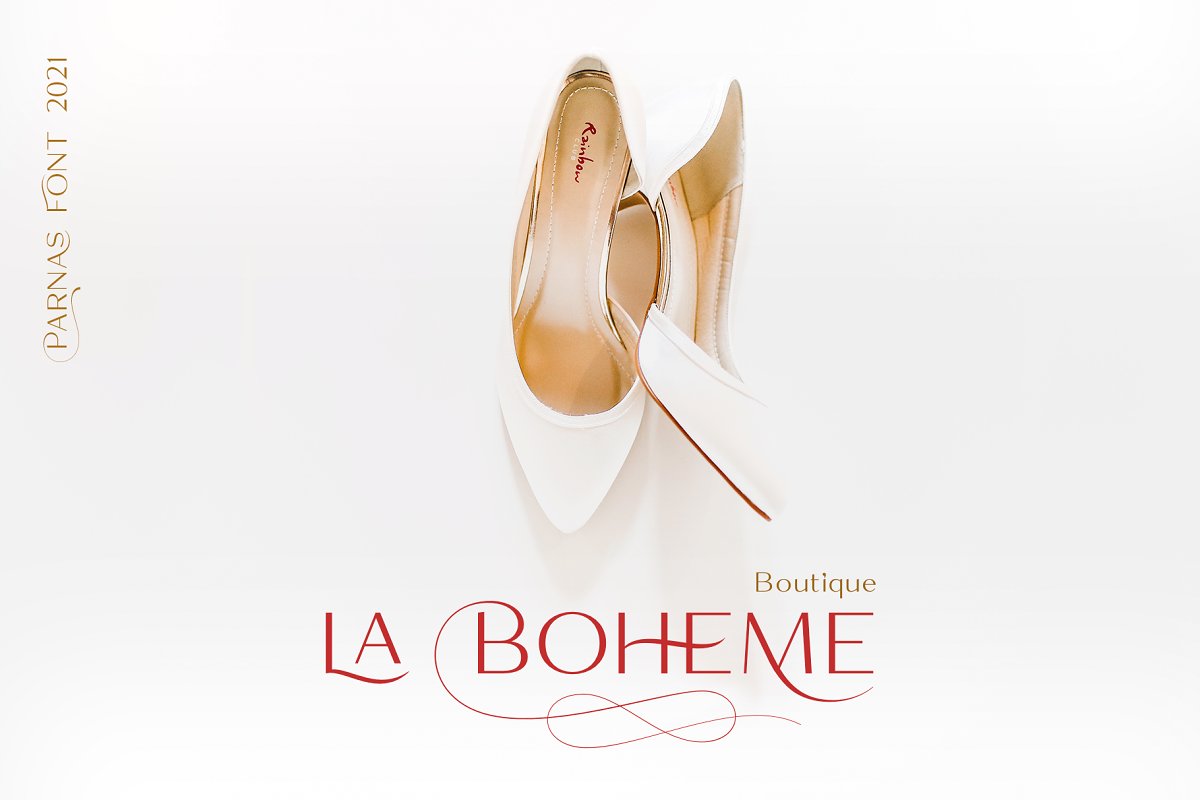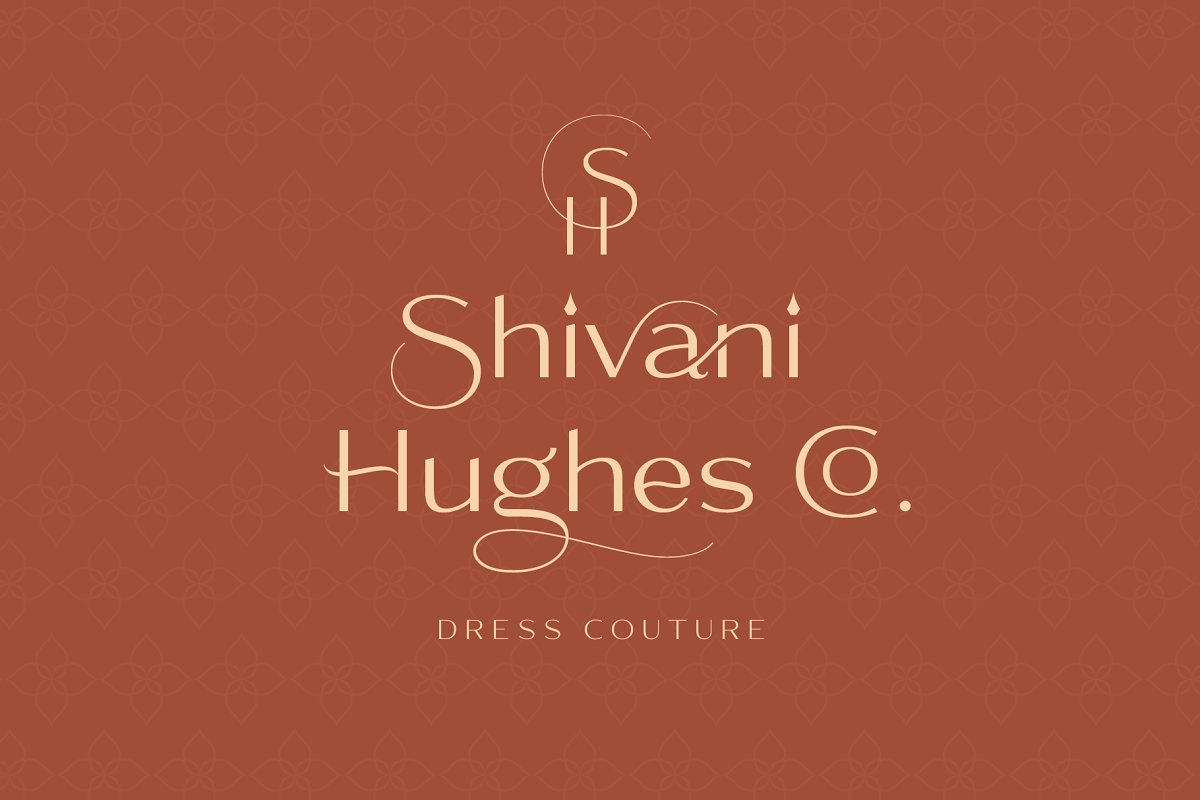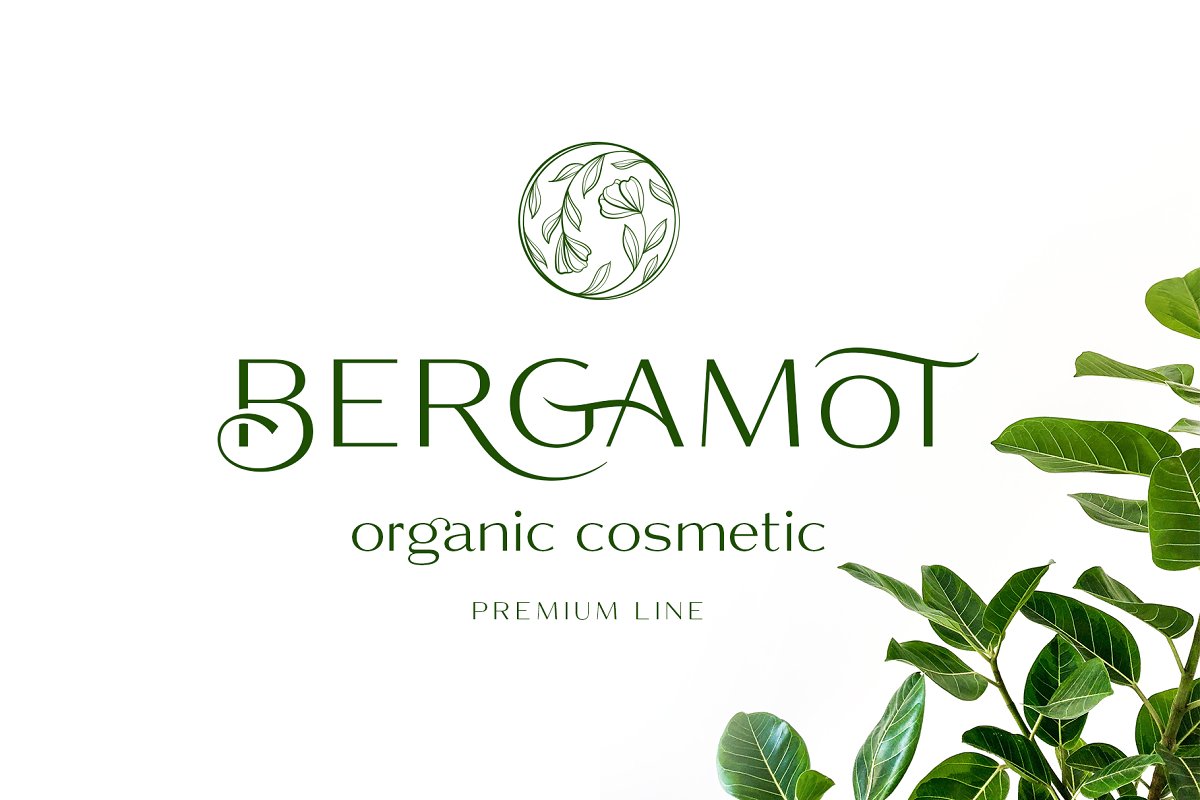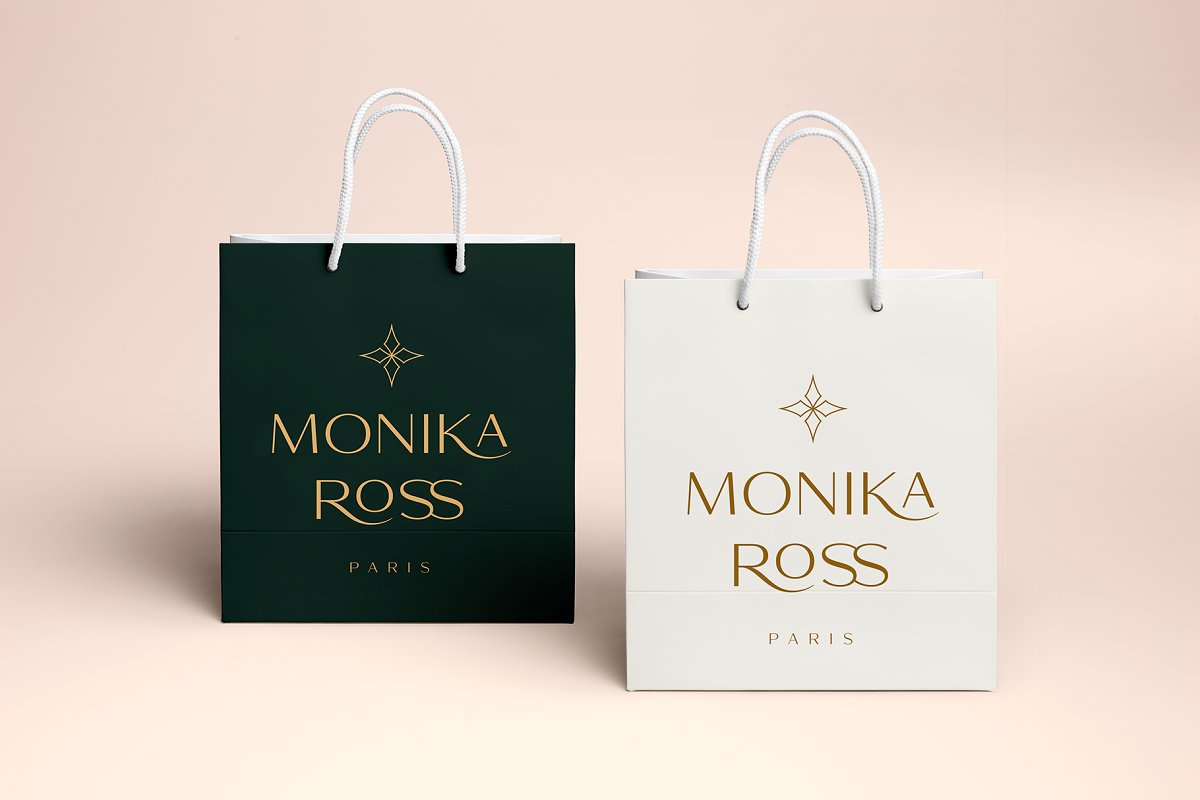
THIS FONT CAN BUY WITH 96% DISCOUNT HERE:https://creativemarket, com/pasha, larin/10287097-Modern-Font-Bundle-Vol, 2This is the second style of this sans-serif font, There is also this serif font, you can see it here:https://creativemarket, com/pasha, larin/4683129-ParnasParnas this is an amazing font that can be used in a classic style or in a more expressive and elegant with alternative and ligatures, of which there are many
Set the style and mood of your design, because just a few touches can absolutely change it, With it, you can easily realize all your ideas, Classical forms, smooth lines, sharp serifs, weightless style, various weaves, long tails, all this and much more will give you many options for creating your project and will not leave indifferent even the most demanding
This font is easy to use, has OpenType features, Following international symbols support: ÀÁÂÃÄÅĄÇĆÈÉÊËĘÌÍÎÏÐÑŃŁÒÓÔÕÖØÙÚÛÜŚŠŸÝŹŻŽßàáâãäåçèéêëìíîïðñòóôõöøùúûüýÿąćęłńśšźżžPlease note that Stylistic Alternates will require professional design software such as Adobe Illustrator, Photoshop, InDesign or Inkscape and other